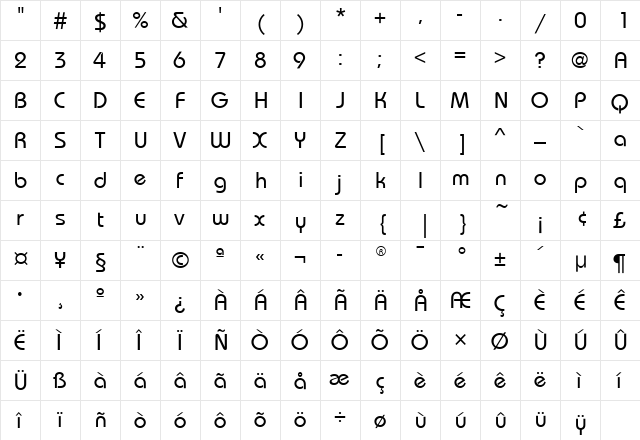
BauhausMdITC Medium Font Preview
BauhausMdITC Medium
BauhausMdITC Medium Font Details
Design Context for BauhausMdITC Typeface
BauhausMdITC offers clean, dependable letterforms without strong stylistic allegiance, making it a practical choice for designers who need flexibility.
Pro Tip: Pair BauhausMdITC with a font of contrasting weight or personality to build a more expressive typographic hierarchy.